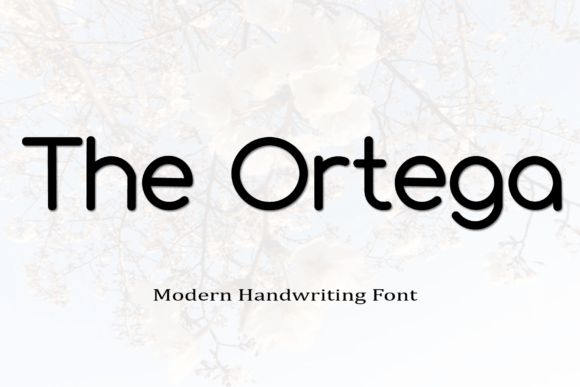
Introducing The Ortega Font, a delicate and elegant sans serif font that will take your designs to new heights! Created by RR Studio, this font is a true masterpiece with its distinct and well-balanced letters. Get ready to fall head over heels for its incredibly versatile style that will bring your creative visions to life.
Are you looking to make a statement with your tattoos or create eye-catching designs? The Ortega Font is your answer! With its cool and captivating script, this font is perfect for those who want to stand out from the crowd. Let your tattoos speak volumes and leave a lasting impression on everyone who sees them.
But The Ortega Font doesn't stop there. It goes beyond just tattoos and can be used for a wide range of design projects. Whether you're working on branding, logos, posters, or social media graphics, this font will add a touch of elegance and sophistication to your creations. Let your imagination run wild and watch as The Ortega Font transforms your ideas into stunning realities.
What sets The Ortega Font apart is its ability to evoke emotions and capture attention. Its unique style will make your designs unforgettable, leaving a lasting impact on your audience. Whether you're aiming for a bold and edgy look or a subtle and classy feel, this font has got you covered.